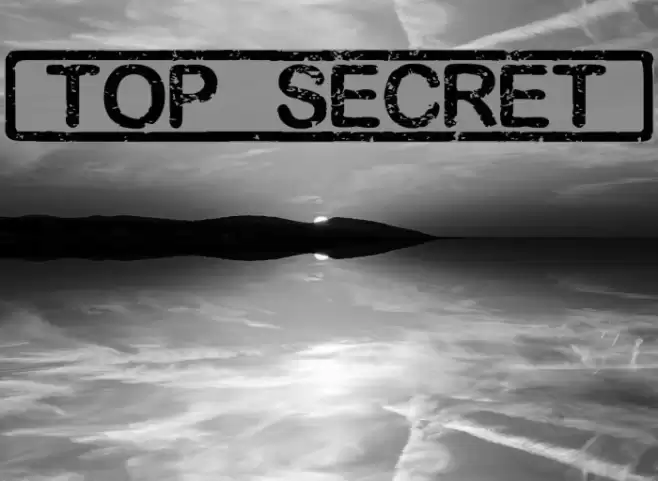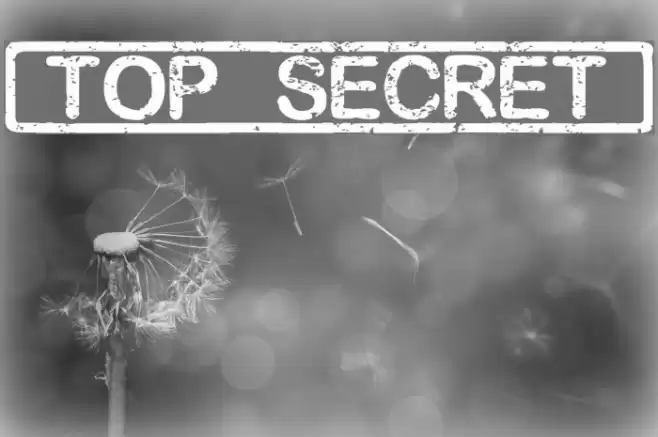
[TOP_SECRET] Font
[TOP_SECRET] Description
This font features a bold, distressed style with a stencil-like appearance. The characters are uppercase and have a rugged, worn texture that gives them a vintage, industrial feel. The letters are evenly spaced and have a consistent weight, contributing to a strong and impactful visual presence. The numbers and special characters share the same distressed aesthetic, making them suitable for designs that require a bold statement. This font is ideal for projects that aim to convey a sense of strength, durability, or a retro military theme.
A bold, distressed stencil-style font with a vintage industrial feel from Distorted Eroded fonts.
- Proposed Projects: Ideal for posters, logos, branding, packaging, and any design needing a rugged, vintage look.
- Overall Style: Vintage, Industrial